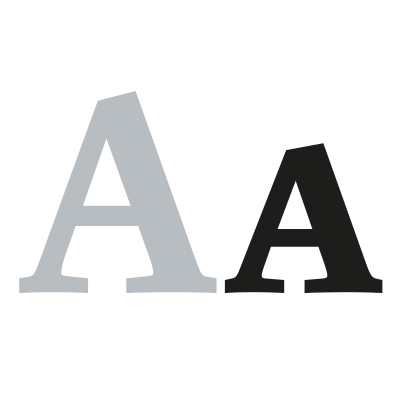
Small capitals (or just small caps) can be used in bicameral scripts. They use the design of capital letters, but are smaller (roughly the size of the lowercase letters) and usually replace the lowercase letters.
Dutch: kleinkapitalen
French: petites capitales
German: Kapitälchen
Italian: maiuscoletto
Norwegian: Kapiteler
Polish: kapitaliki
Russian: капите́ль
Spanish: Versalita
Turkish: Kısa-Büyük Harfler
Related Term(s): Petite caps